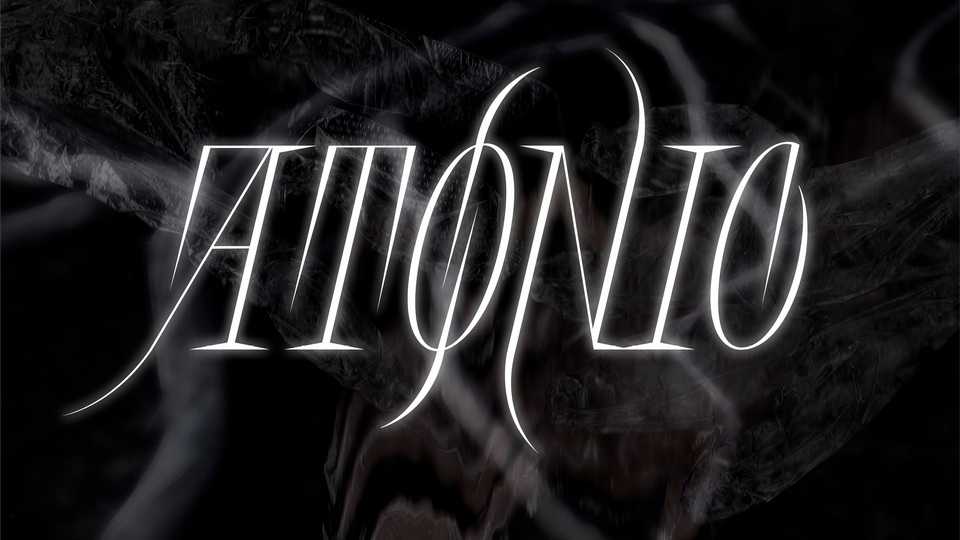
Download Atonic font, a unique display typeface that combines the graceful curves of natural hand movements with sharp spiking elements. The slant enhances the overall display character of the symbols, also giving them dynamics.
Designer: Antonina Samokhina